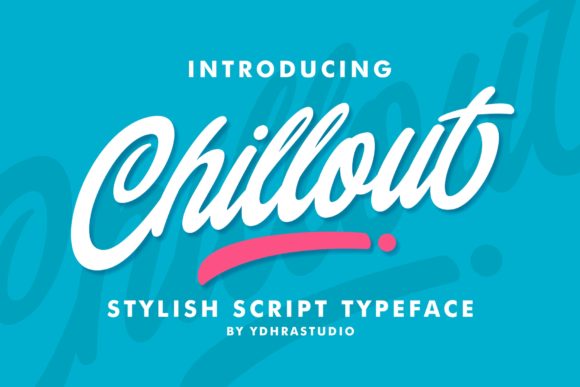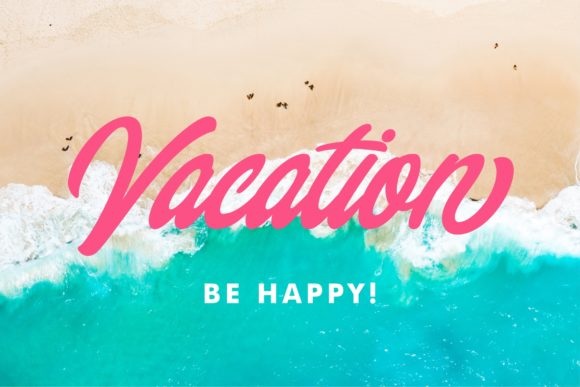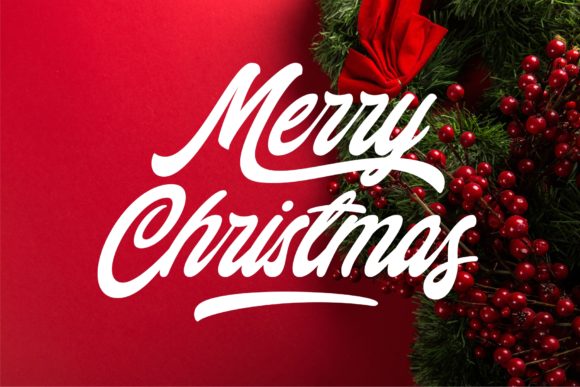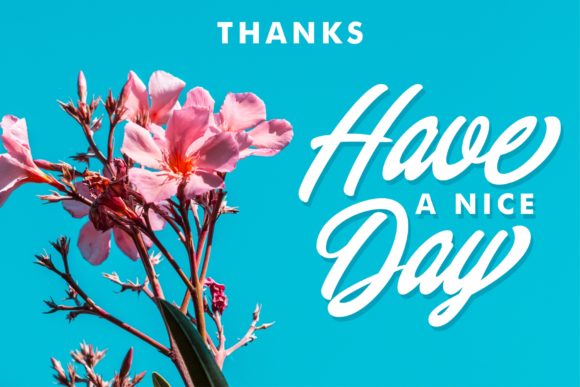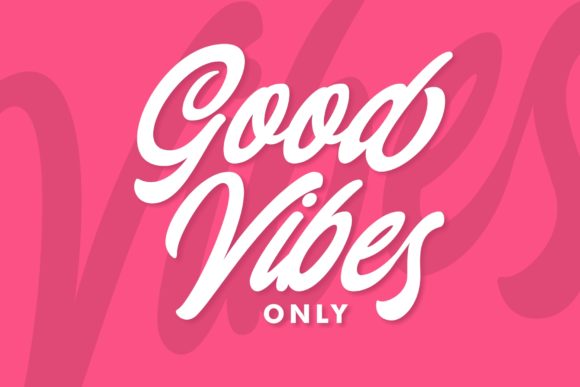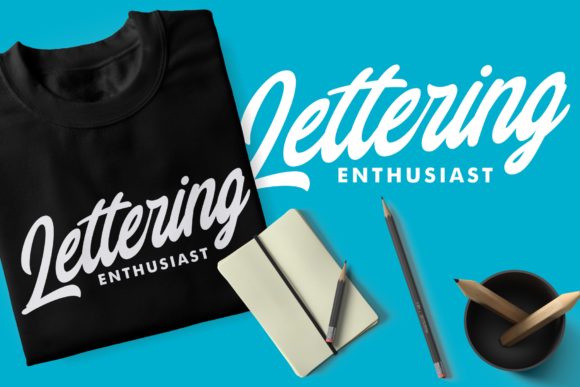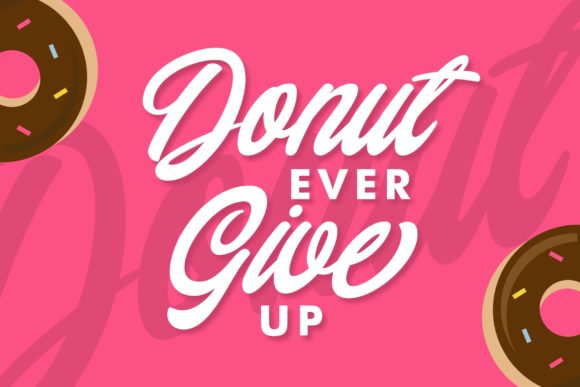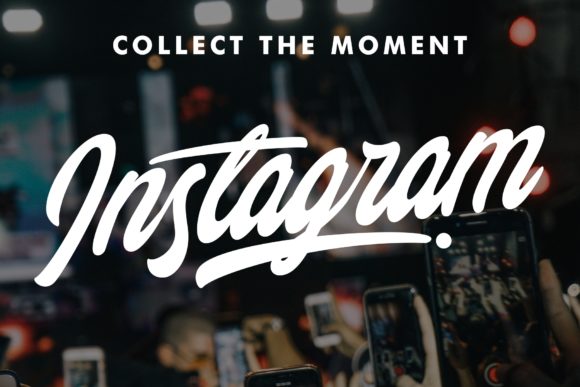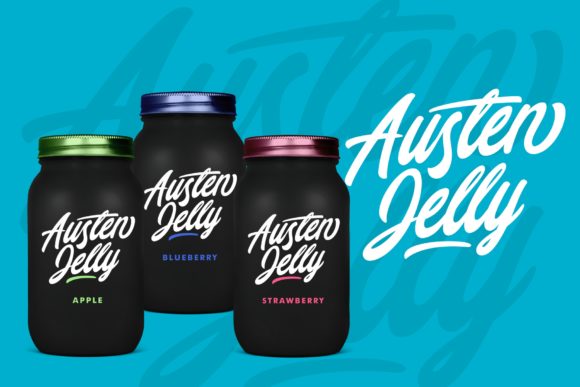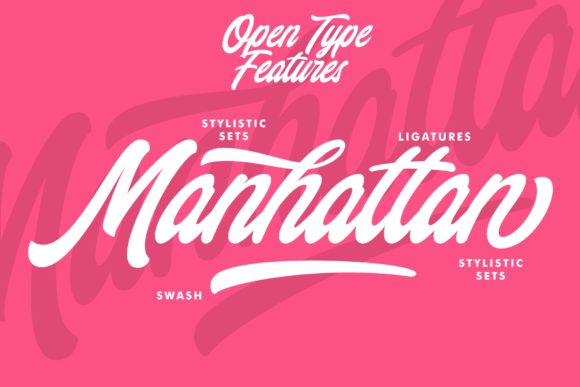
Chillout Font
About Chillout Font
The Chillout is a stylish script font inspired by a bold and colorful hand lettering style. As a bonus there are beautiful swashes included to give your design an elegant, yet striking feel.